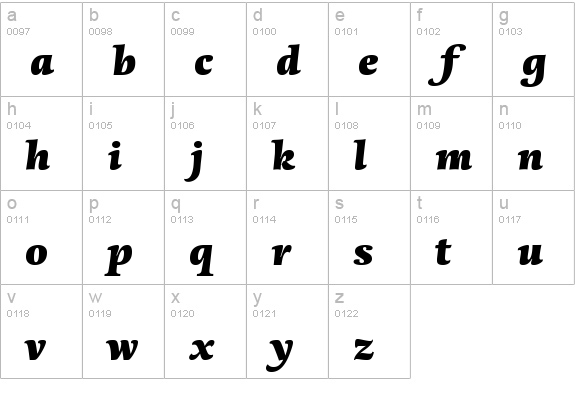
DTLDorianST-HeavyItalic Font Details
Introducing DTLDorianST-HeavyItalic, a striking and bold font that exudes elegance and sophistication. With its strong and italicized design, this font is perfect for making a statement in your projects. The sleek curves and sharp angles of DTLDorianST-HeavyItalic add a touch of modernity and flair to any text. Best of all, DTLDorianST-HeavyItalic is available for free download at FontsMarket.com. This means you can easily access this stylish font and incorporate it into your designs without any cost. Whether you're working on branding materials, invitations, posters, or any other creative project, DTLDorianST-HeavyItalic is sure to leave a lasting impression. Elevate your typography game with this exquisite font today!